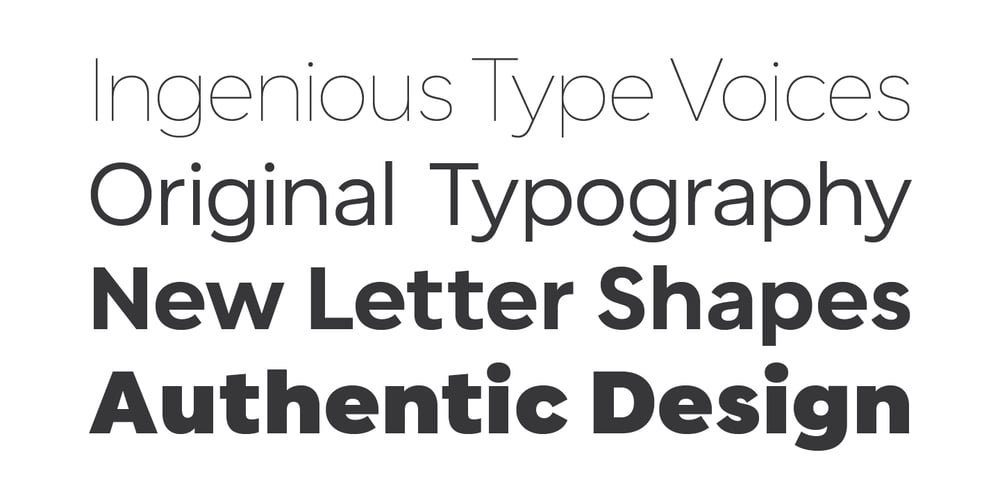
Shoika
Shoika font
Shoika Font Family was designed by Joana Roca, Benoit Dupuis and published by Tropical Type Foundry. Shoika contains 12 styles and family package options. Shoika is a celebration of geometry. It’s a typographic quest for purity with a touch of hidden gems in the form of unique details and characters. Shoika is perfect for the modern designer who needs a solid, refined and versatile font family for branding, UX, web, packaging and editorial jobs.Shoika presents a wide range of weights (18 fonts), supports an extensive variety of Latin alphabet-based languages (over 200), and it has been manually kerned and auto-hinted for enhanced performance on screen.It includes several OpenType features like case diacritics, tabular figures, arrows, ordinals, inferior and superior figures, numerator and denominator figures, fractions, circled figures, black circled figures, outline dingbats and solid dingbats.All typefaces from Tropical Type Foundry include free updates and free technical support. For custom enquiries don’t hesitate to get in touch: tropicaltypefoundry@gmail.comImagery credits: Unsplash (Photo), DrawKit and RawPixel (Illustrations).